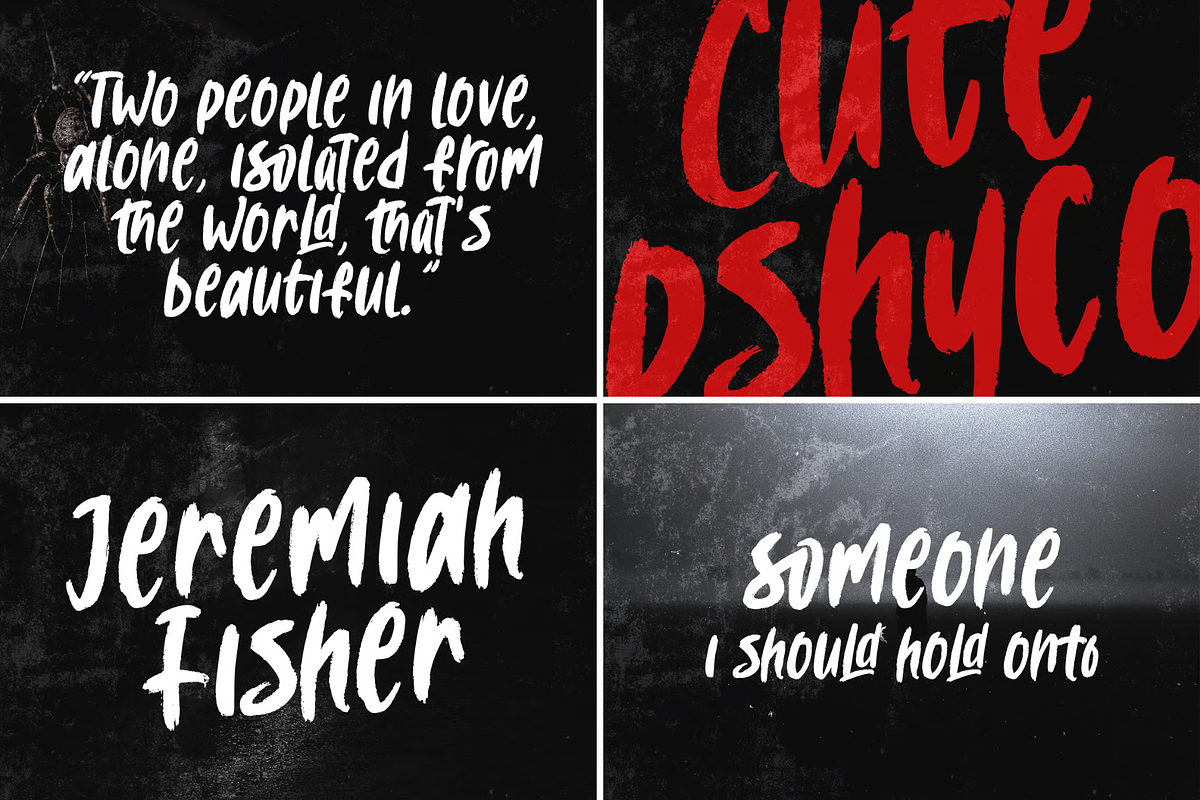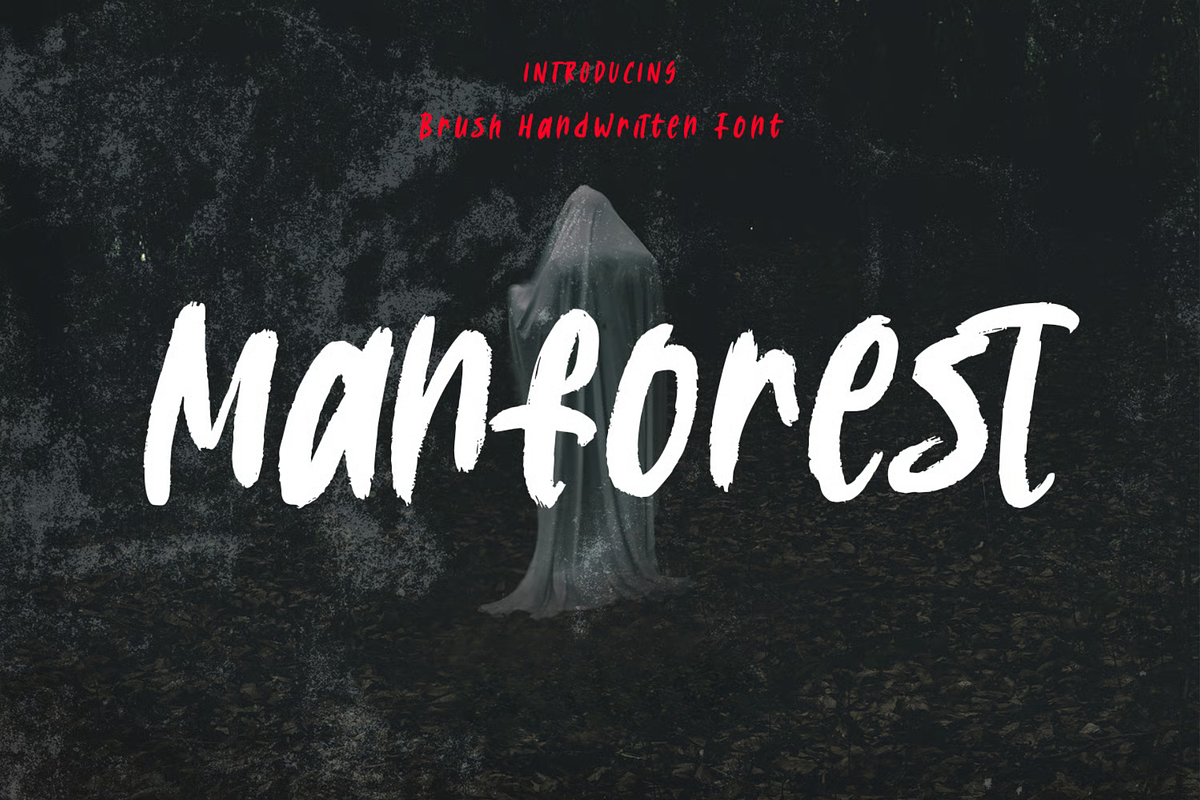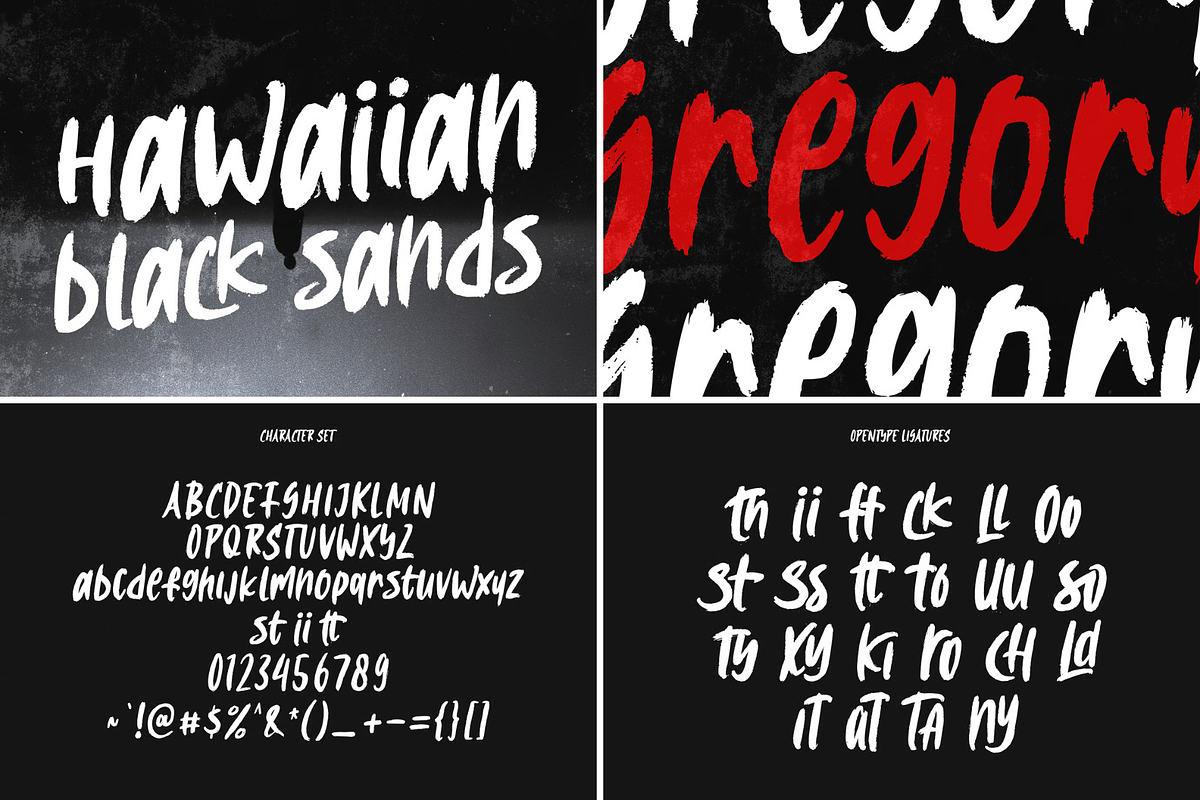
Manforest Handwritten Display Font
Manforest is a brush handwritten display font. With medium brush stroke, fun character. To give you an extra creative work. Manforest font support multilingual more than 100+ language. This font is good for logo design, Social media, Movie Titles, Books Titles, a short text even a long text letter and good for your secondary text font with sans or serif. Make a stunning work with Manforest font.